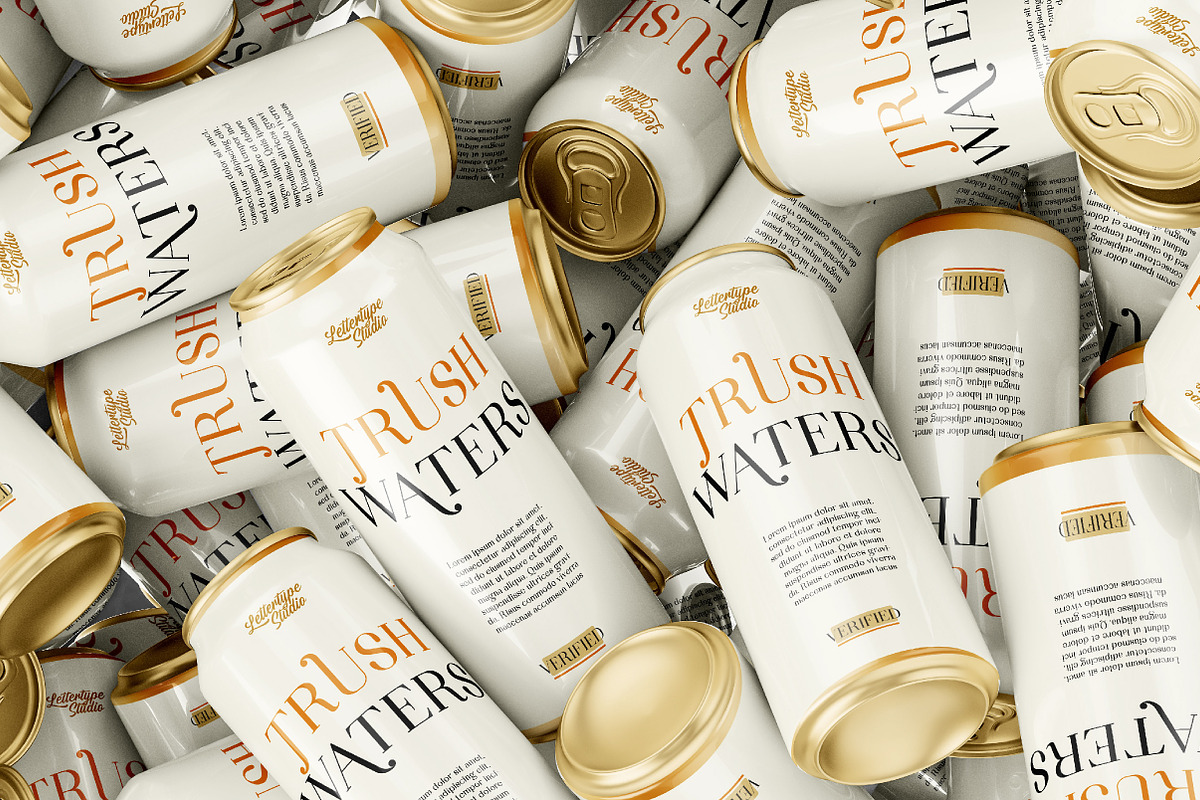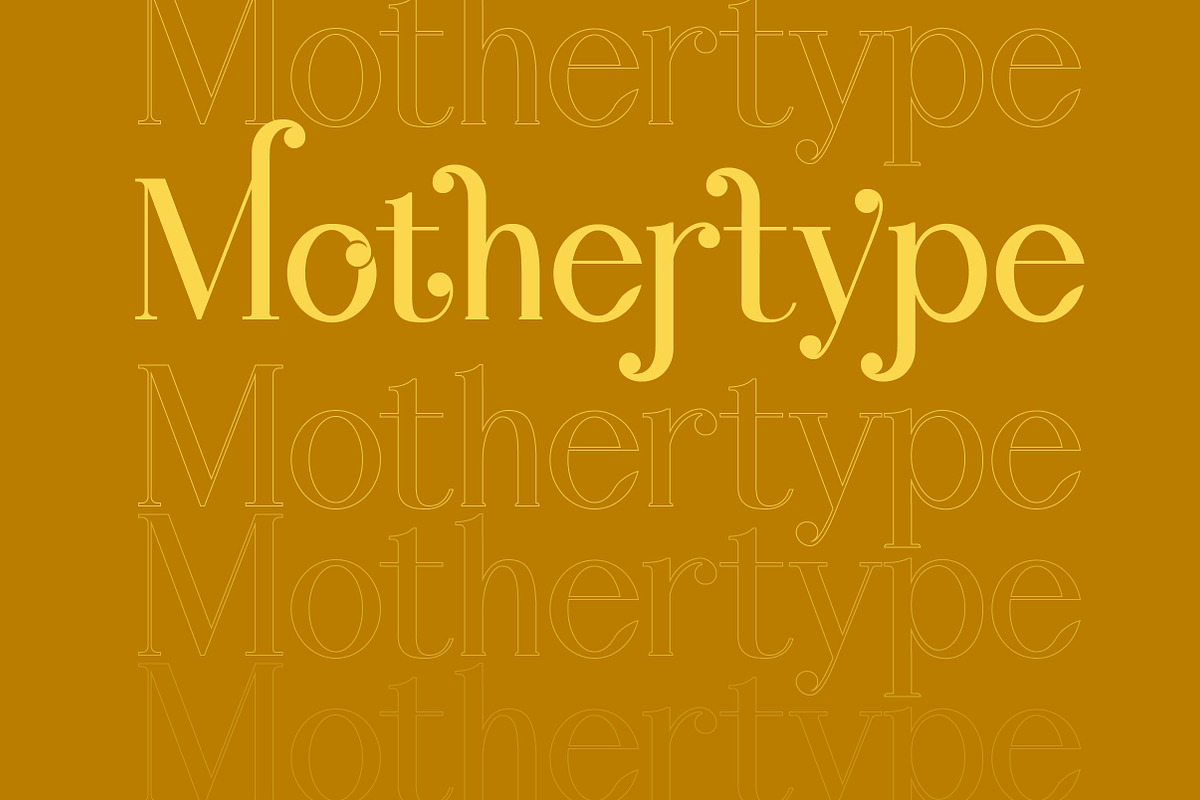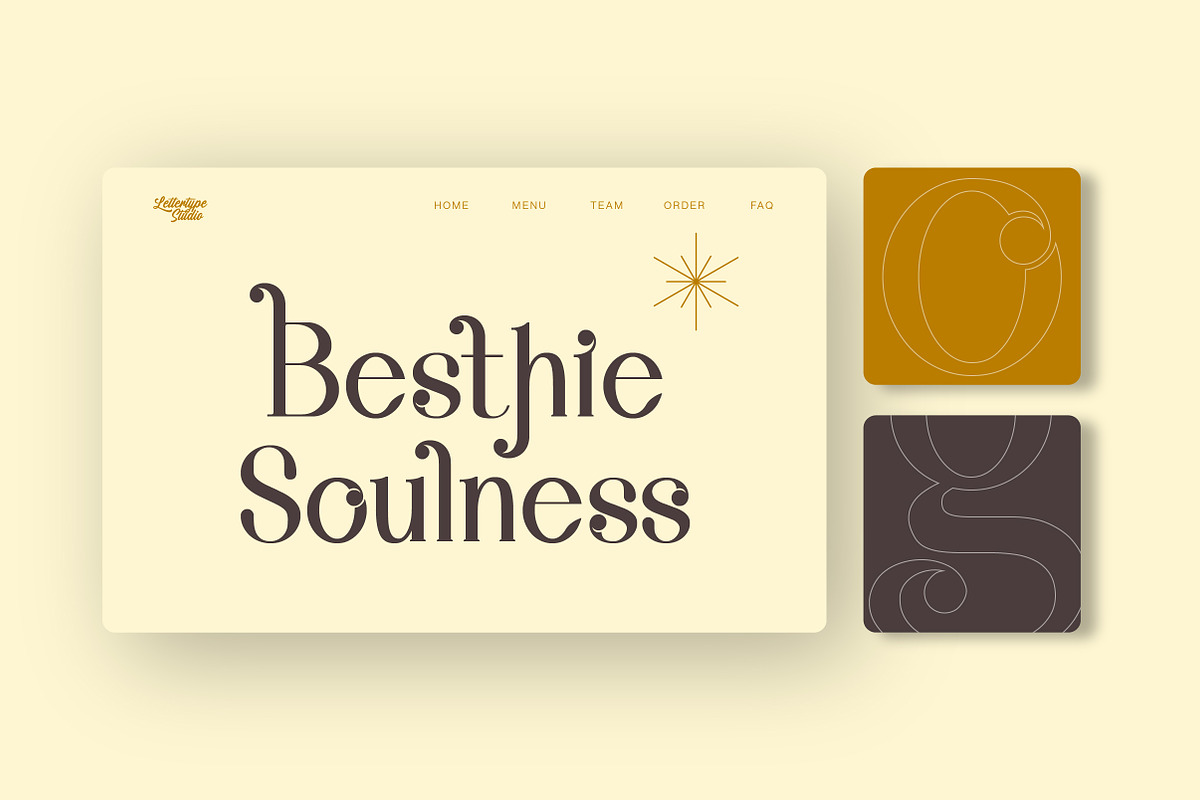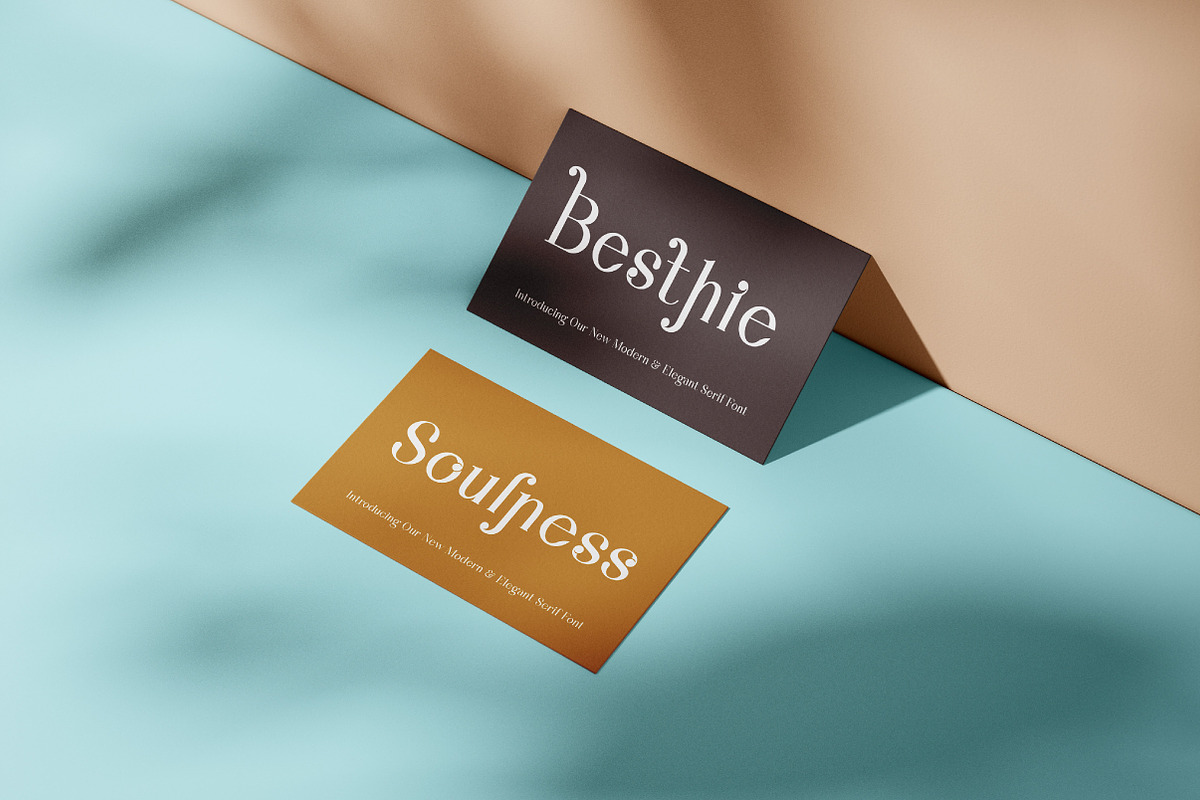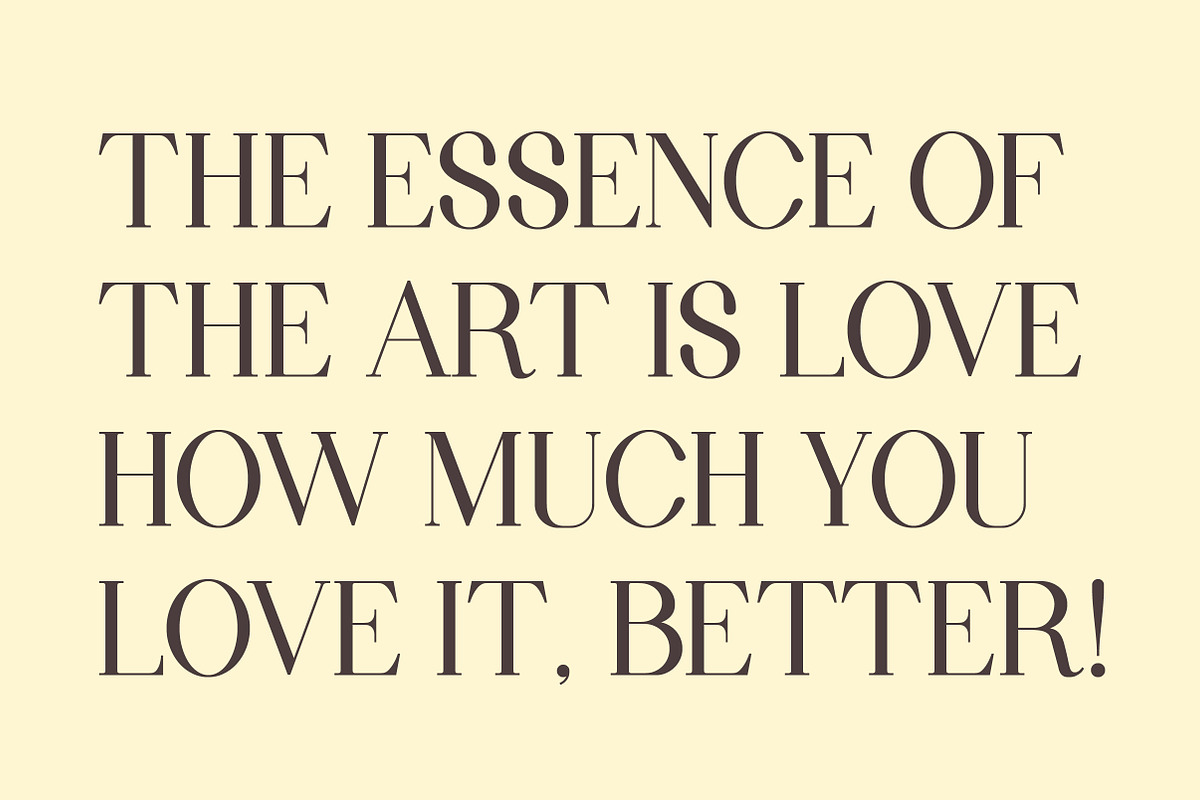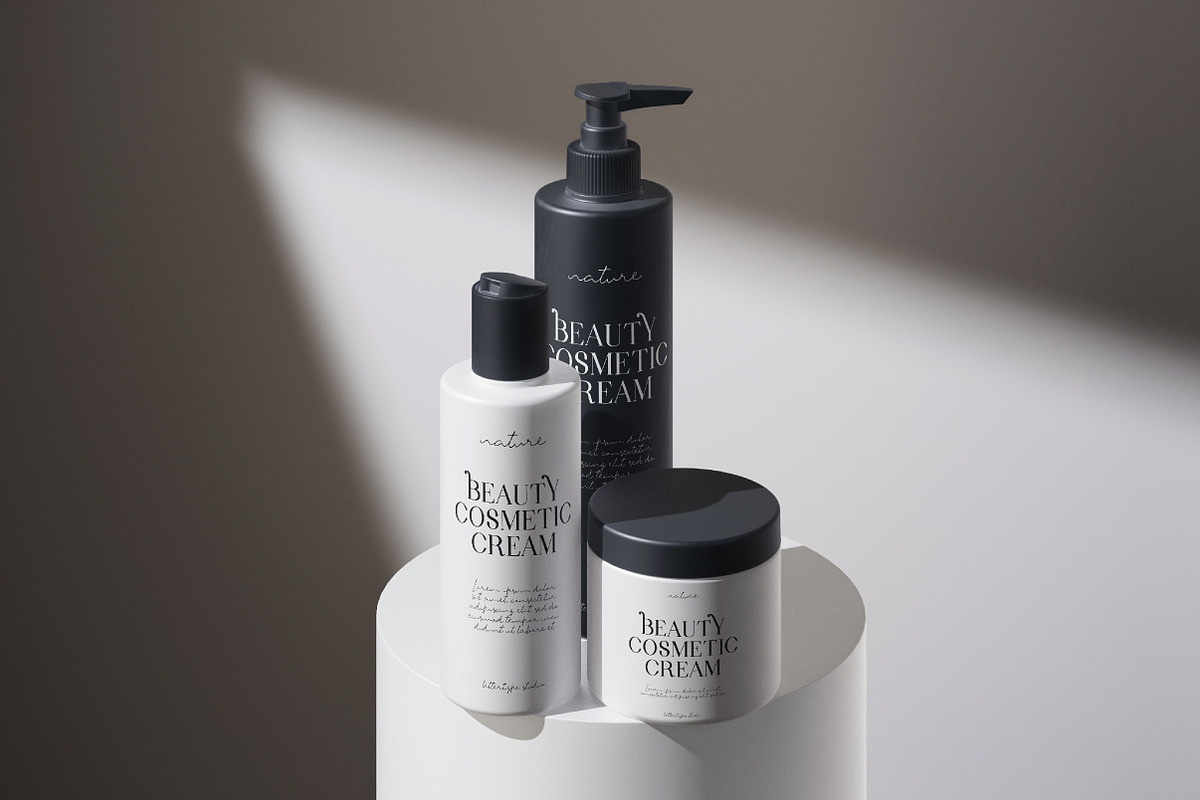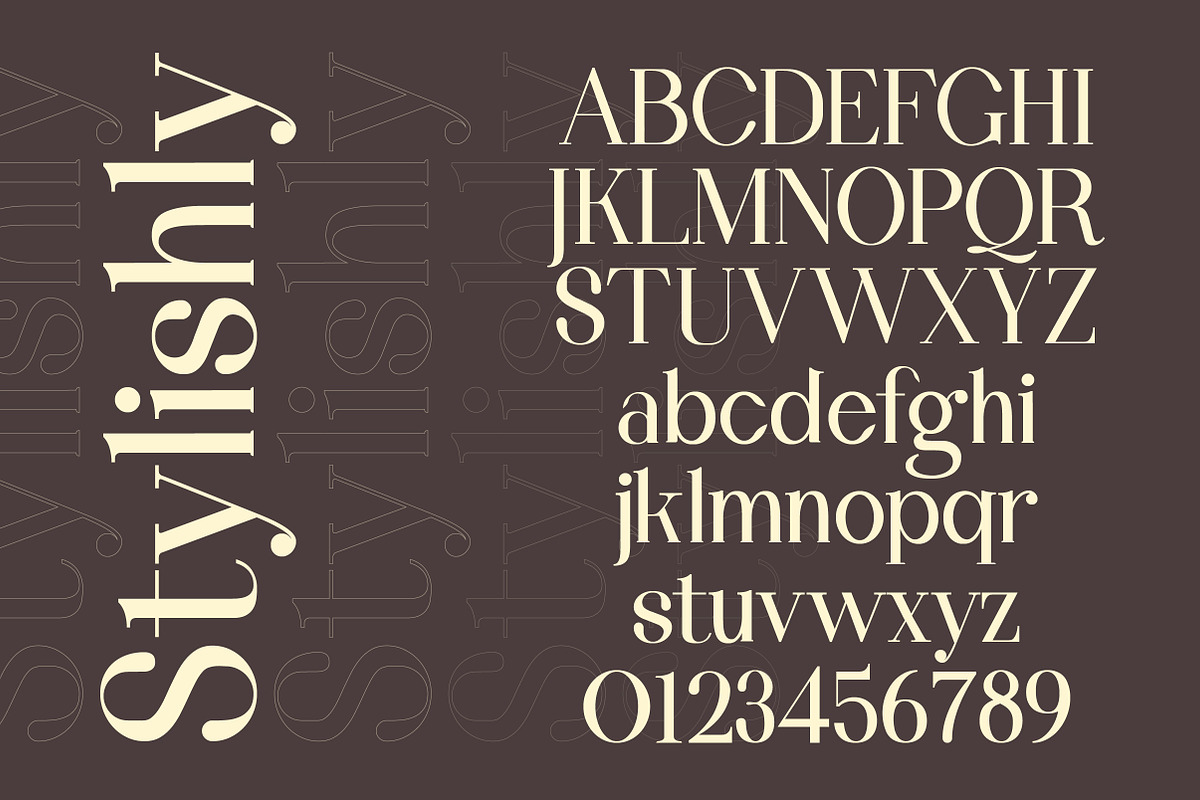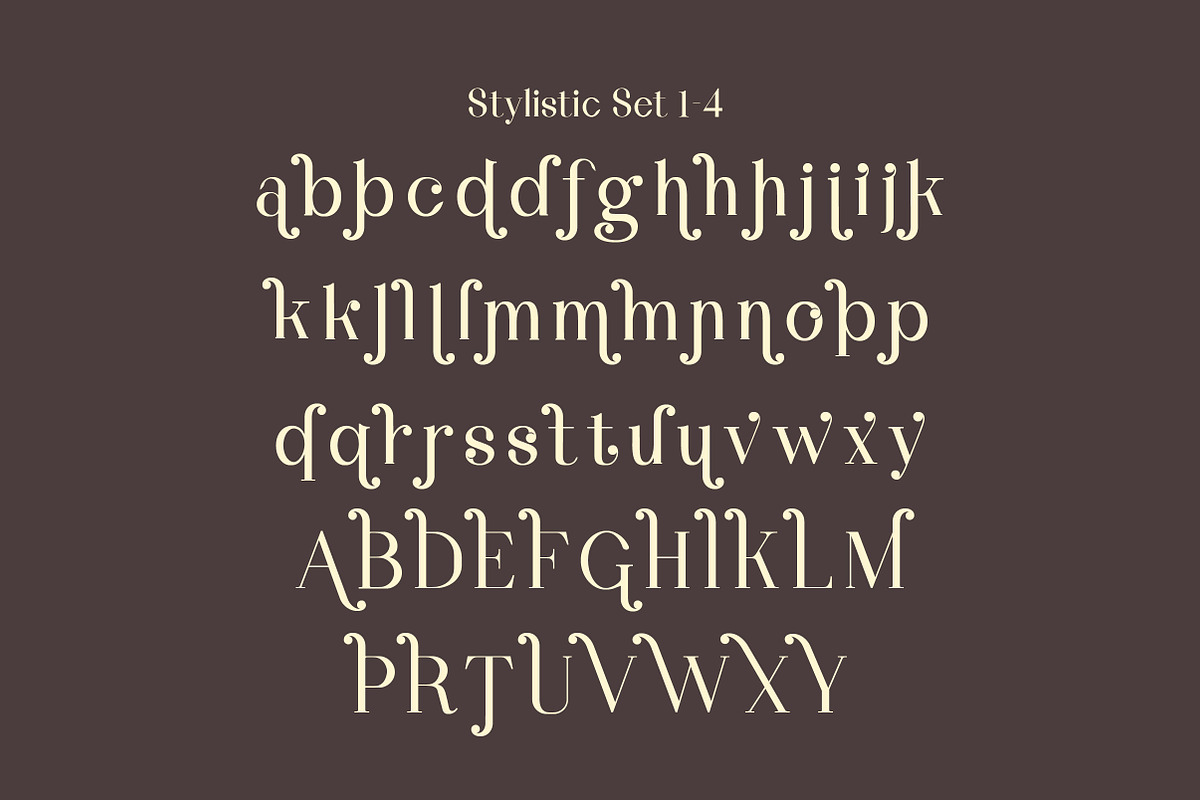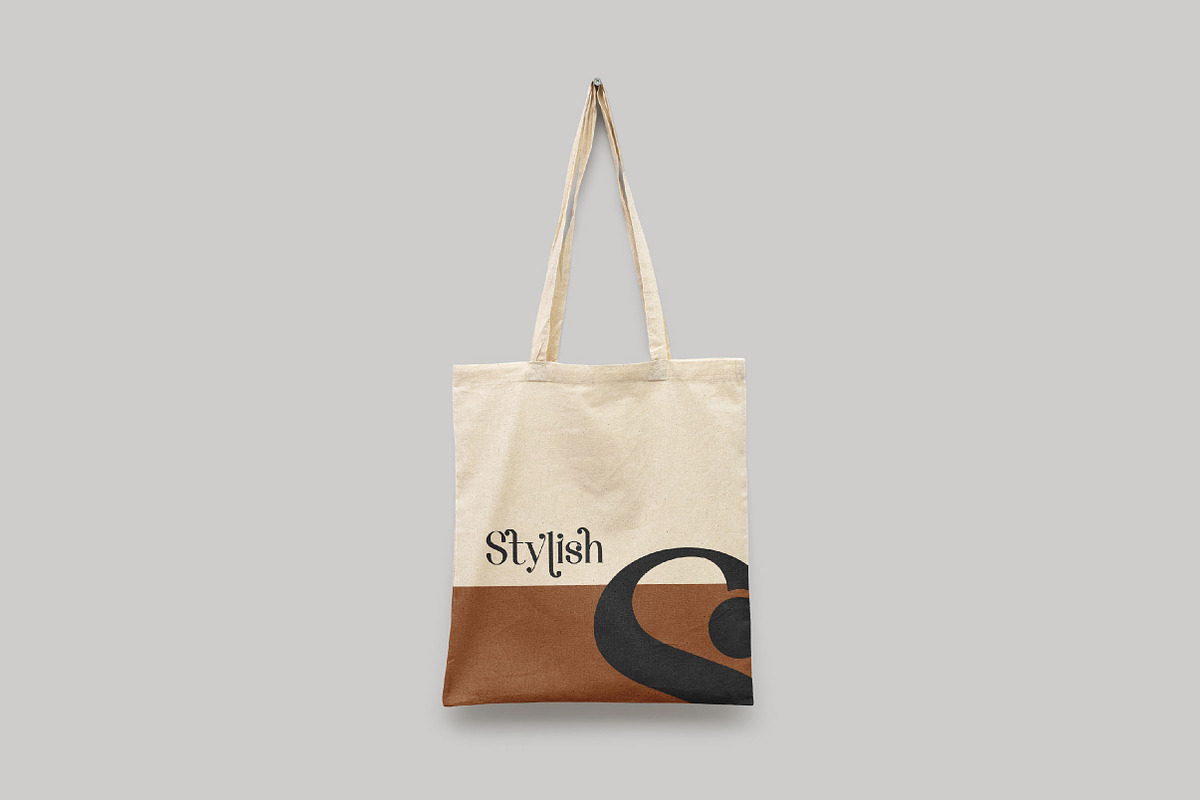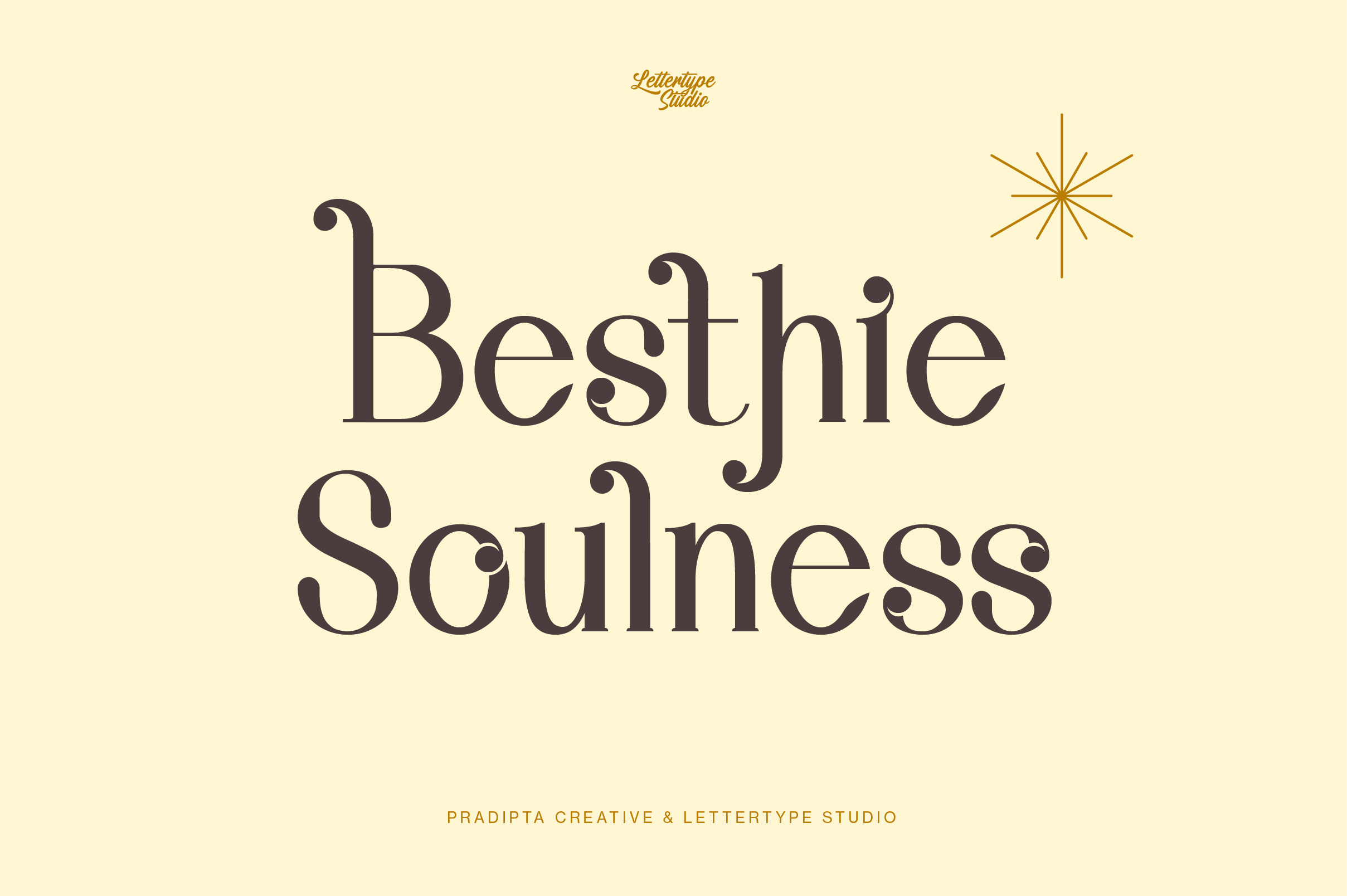
Besthie Soulness a Luxury Serif Font
Besthie Soulness was a luxury, classic, and modern feel serif font with a ton of stylistic set.
This font will be perfect for your logo design, branding, clothing, signage, posters, wedding invitations, cosmetics or fashion and so much more!
Besthie Soulness will help your project or brand have a luxurious, classic, and modern look.
Besthie Soulness Comes With:
- Lowercase, Uppercase, and Ligatures
- Tons of Stylistic Alternates
- Accented Characters (up to 188+ Glyphs)
- Besthie Soulness (Regular)
- Multiple Languages Supported